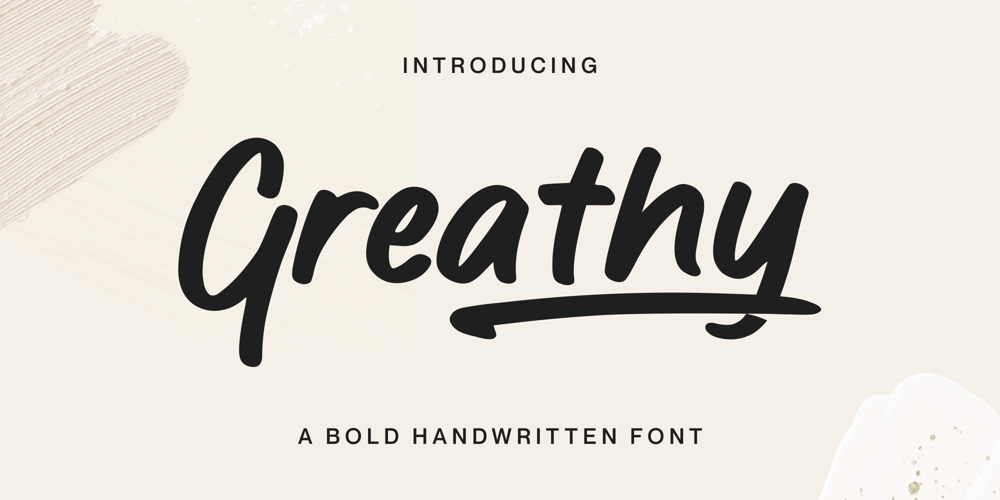
Greathy Font Family was designed by Fachrizal Yusuf and published by Allouse Studio. Greathy contains 1 styles and family package options. Proudly Present, Greathy a Bold Handwritten Font.Greathy is perfect for any titles, logo, product packaging, branding project, megazine, social media, wedding, or just used to express words above the background.Greathy also come with Multi-Lingual Support.Enjoy the font, feel free to comment or feedback, send me PM or email. Thank You!